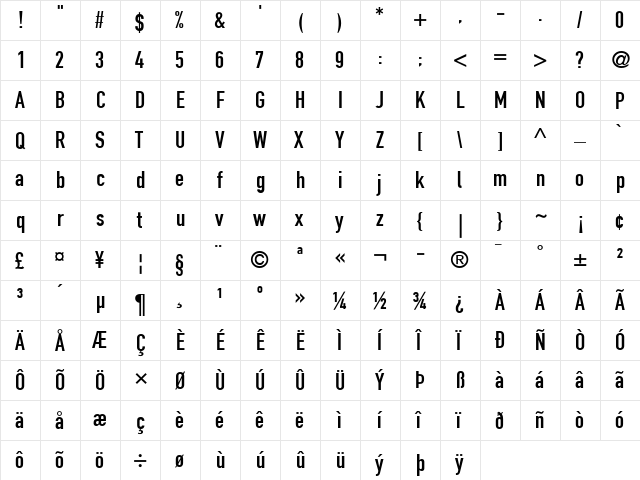
DINEngschrift LT Alternate Regular
Design Context for DINEngschrift LT Alternate Typeface
DINEngschrift LT Alternate takes a measured approach to typography — its balanced proportions and neutral character make it a reliable workhorse for both digital and print work. Its slender proportions lend an understated elegance to any composition.